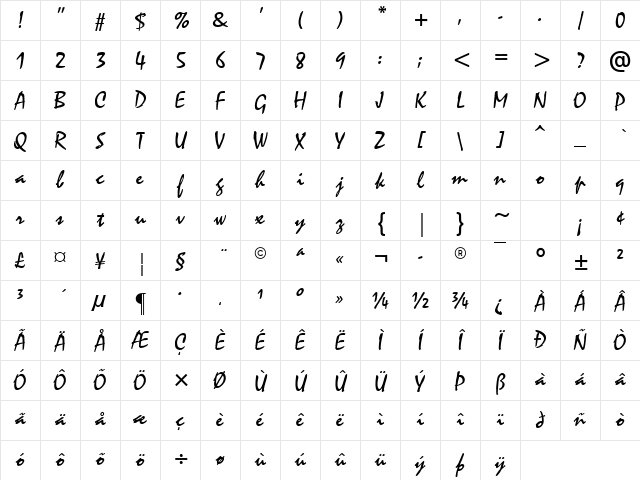
Complete Aeolus Regular glyph index. Displaying only characters natively supported by Aeolus Regular font.
Aeolus is a composed and adaptable typeface that performs quietly and consistently across a wide range of design contexts.